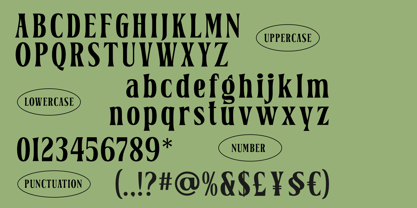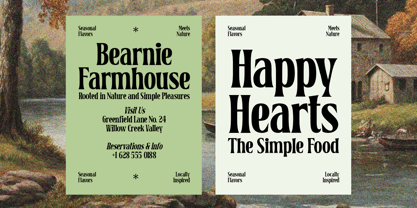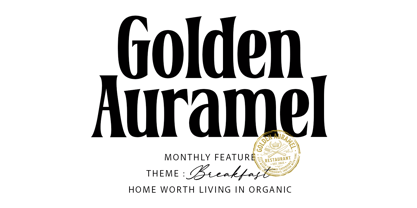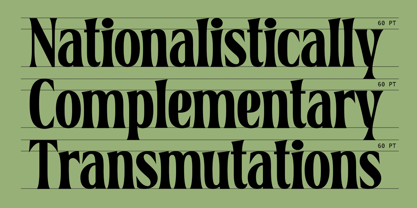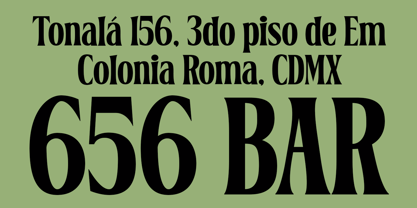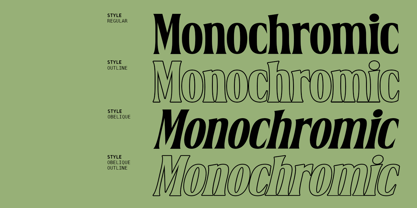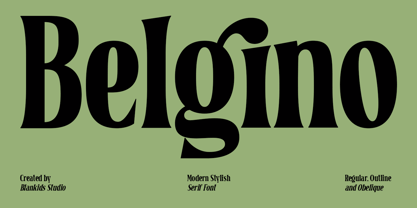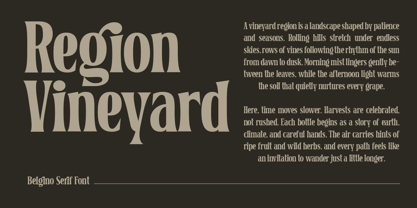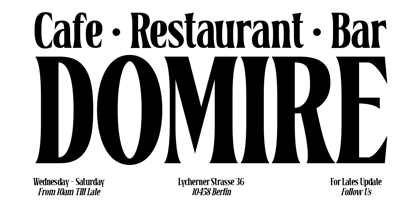
Belgino
Belgino – Modern Stylish Serif Font
Belgino is a modern stylish serif font designed to bring elegance, personality, and high-end character into your typography. With its bold curves, sharp serifs, and distinctive letterforms, Belgino delivers a perfect balance between classic sophistication and contemporary style.
This typeface is crafted to stand out in large headlines while still maintaining excellent readability. Its dramatic contrast and unique shapes make every word feel premium, expressive, and memorable.
Why choose Belgino?
Belgino is built for designers who want their work to look classy, confident, and modern without feeling complicated or hard to read. The font carries a fashionable editorial vibe, making it ideal for branding and luxury design projects.
Perfect for:
• Branding and logo design
• Editorial layouts and magazines
• Restaurant, café, and bar menus
• Packaging and product labels
• Posters and advertising
• Social media graphics
• Wedding and event designs
• Website headlines and hero titles
Belgino adds a refined and stylish voice to your designs. Whether you’re creating a luxury brand identity, a modern magazine cover, or an eye catching poster, Belgino helps your typography look premium and professional effortlessly.
Make your designs bold, elegant, and unforgettable with Belgino.